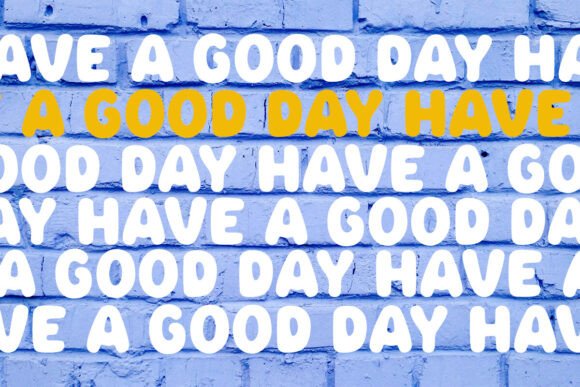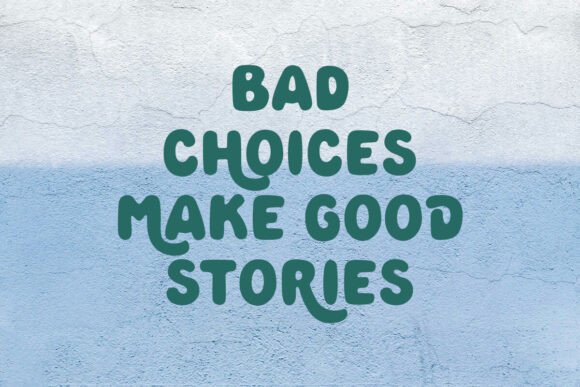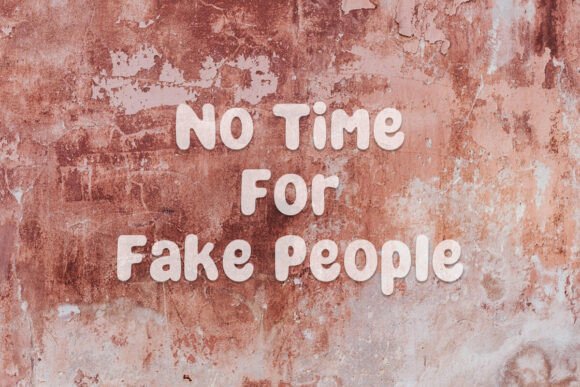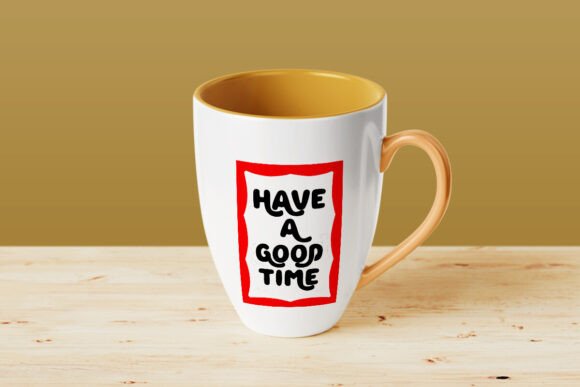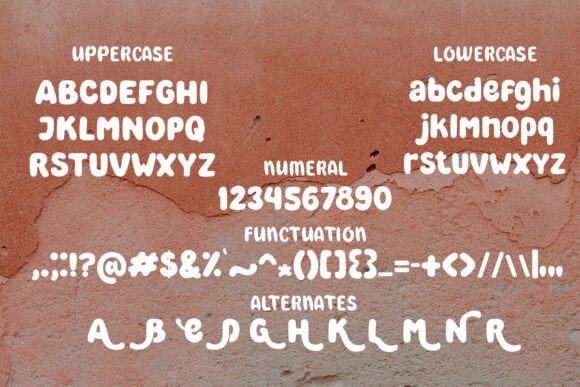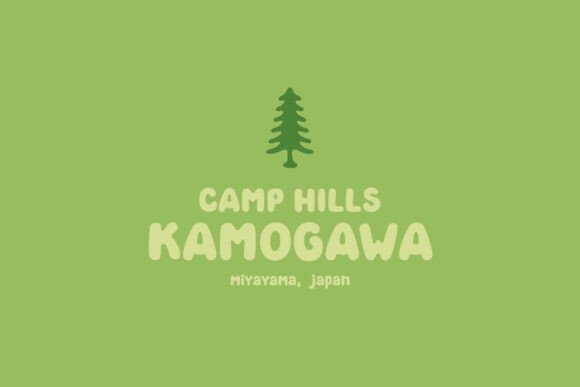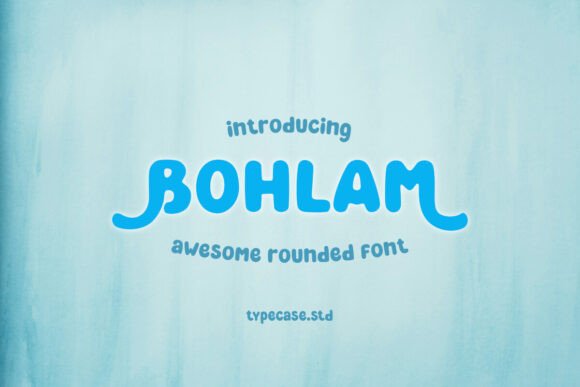
Discover the Playful Charm of the Bohlam Font
I’ll never forget the time I was working on a project for a client who wanted a playful, yet sophisticated look. I had spent hours browsing through font libraries, but nothing seemed quite right. That was until I stumbled upon the Bohlam font. Its unique, hand-crafted bubble style with sleek, soft edges immediately caught my attention. I knew right then and there that it was the perfect fit for my project. In this article, I’ll share with you why I’m so in love with the Bohlam font and how you can make the most of its features in your own designs.
A Personal Review of the Bohlam Font
- ✨ Unique, hand-crafted bubble style with sleek, soft edges
- ✅ Organic aesthetic that adds a human feel to designs
- ✅ Supports multiple languages for global design needs
- ✅ Features unique variants in both lowercase and uppercase
- ✅ Includes exclusive icons and underlinings
While the Bohlam font is incredibly versatile, there are a few things to keep in mind. For example, ⚠️ some of the more intricate details may get lost at smaller font sizes. Additionally, 🤔 the font’s playful nature may not be suitable for more formal or corporate designs.
The Backstory of the Bohlam Font
The Bohlam font was designed by a talented type designer who wanted to create a font that would add a touch of humanity to digital designs. Inspired by the imperfections and quirks of handwriting, the designer crafted a font that would be both playful and sophisticated. The result is a font that is uniquely charming and versatile, suitable for a wide range of design projects.
Q: What type of projects is the Bohlam font best suited for?
A: The Bohlam font is incredibly versatile and can be used for a wide range of projects, from posters and stickers to branding and packaging design.
Q: Does the Bohlam font support non-English languages?
A: Yes, the Bohlam font supports multiple languages, making it a great choice for global design projects.
Q: Can I use the Bohlam font in combination with other fonts?
A: Absolutely! The Bohlam font pairs well with a variety of fonts, making it easy to mix and match with other typefaces to create a unique look.